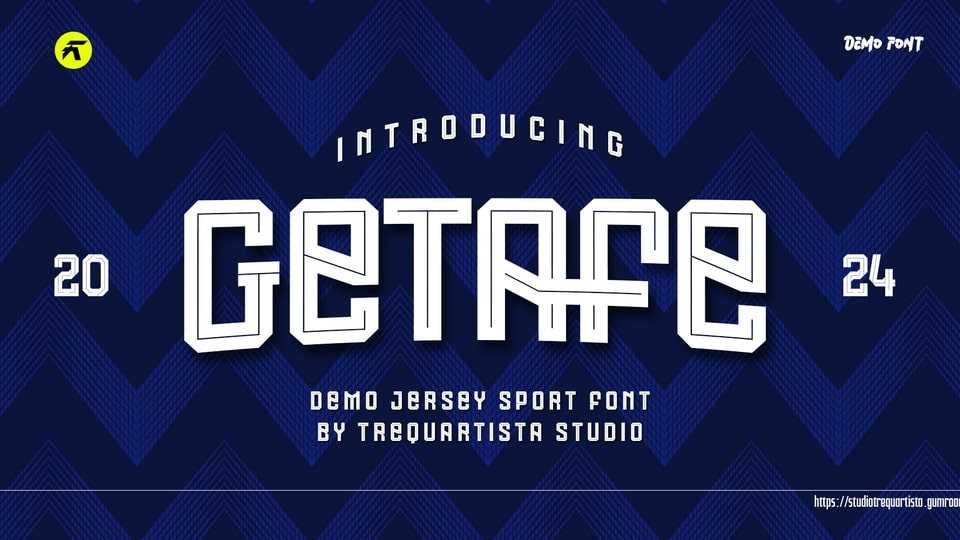
Download Getafe font, a condensed display typeface, inspired by an authentic sports branding typography. It is perfect for sports logos, posters, labels and much more.
Designer: Trequartista Studio